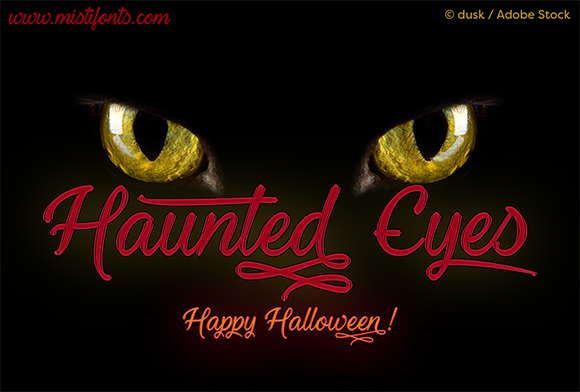
HomeScript FontsHaunted Eyes Font Script Fonts Haunted Eyes Font FacebookXPinterestWhatsApp About Haunted Eyes Font Haunted Eyes is an eerie version of my font Youth & Beauty and is perfect for your Halloween projects! DOWNLOAD NOW People also explored Januworry Font Bollenti Font Cat Font Aussie Font Hey Farmhouse Font The Breachery Script Font Dropink Font Detry Font Magical Mystery Font 272 0 TagsHaunted Eyes Font Previous articleHello Gabhila FontNext articleClaudhi and Jhelio Font LEAVE A REPLY Cancel reply Comment: Please enter your comment! Name:* Please enter your name here Email:* You have entered an incorrect email address! Please enter your email address here Website: Save my name, email, and website in this browser for the next time I comment. Personal Use Free Setta Personal Use Free Read more about this font Krait Personal Use Free Read more about this font Hollow Personal Use Free Read more about this font Bashira Personal Use Free Read more about this font BLOG Where to Buy American Fonts Online in 2024 Where to Buy American Fonts Online: The Ultimate Guide for 2024 Looking for the perfect American font to elevate your design projects? You're in the... 5 Fonts That Will Dominate Design Trends in 2026 Best Fonts for YouTube Videos: Make Your Thumbnails Stand Out Free vs Paid Fonts: Why Investing in Premium Fonts Is Worth It